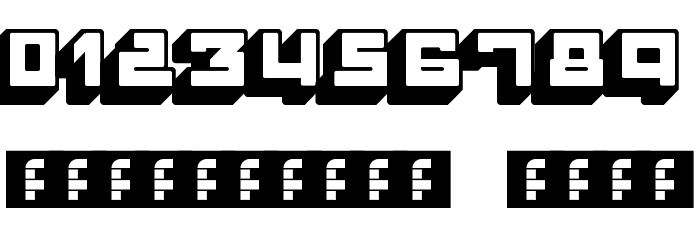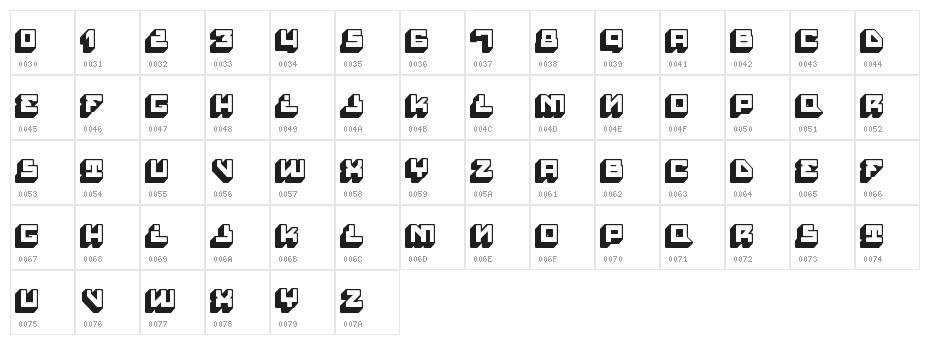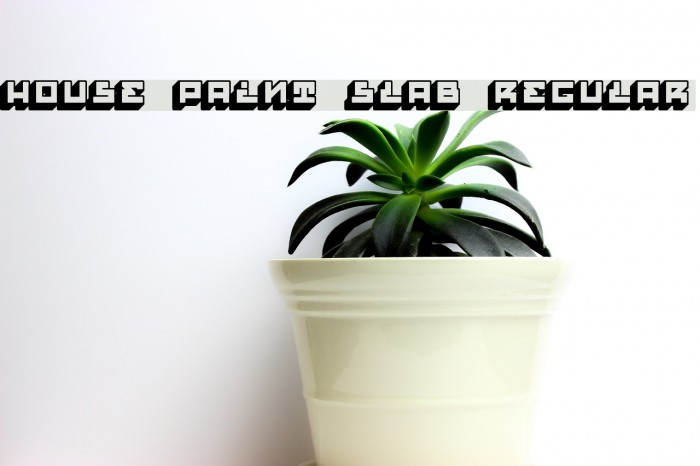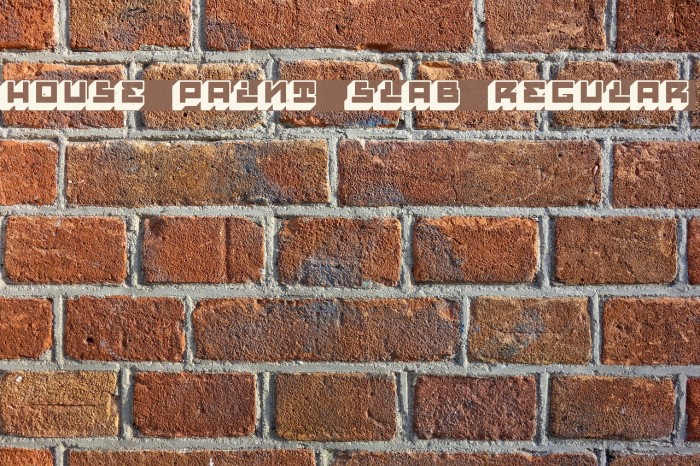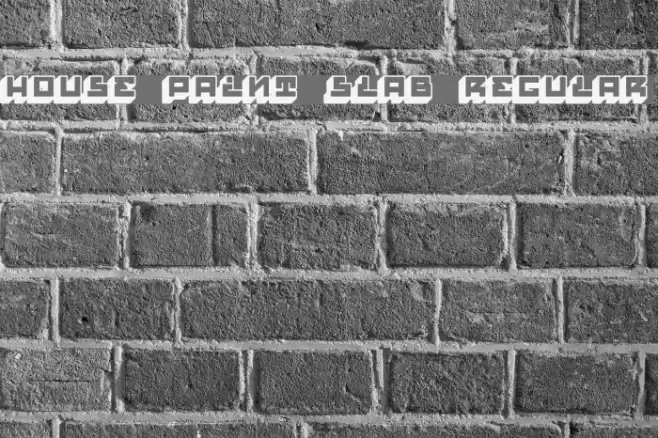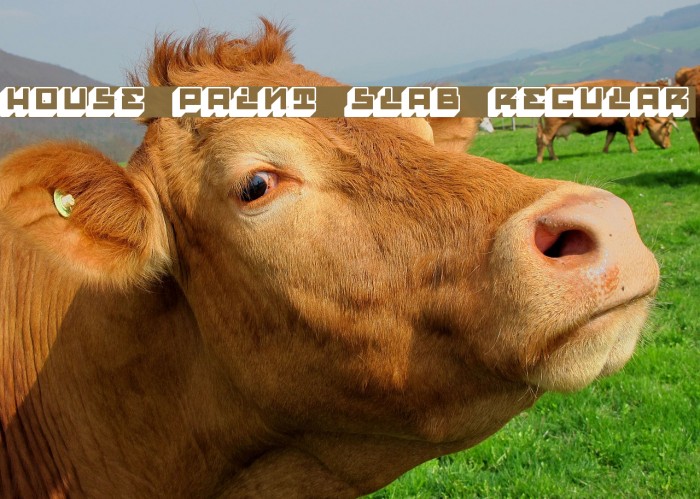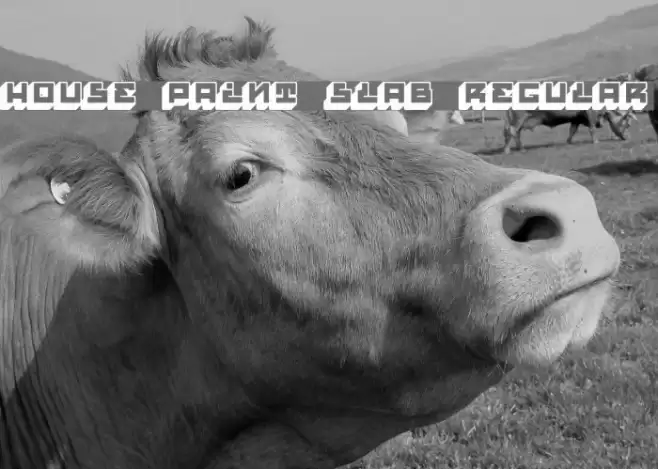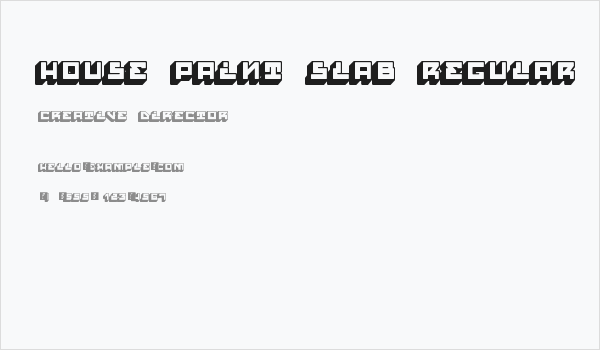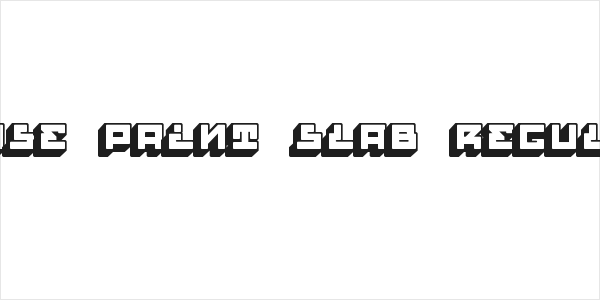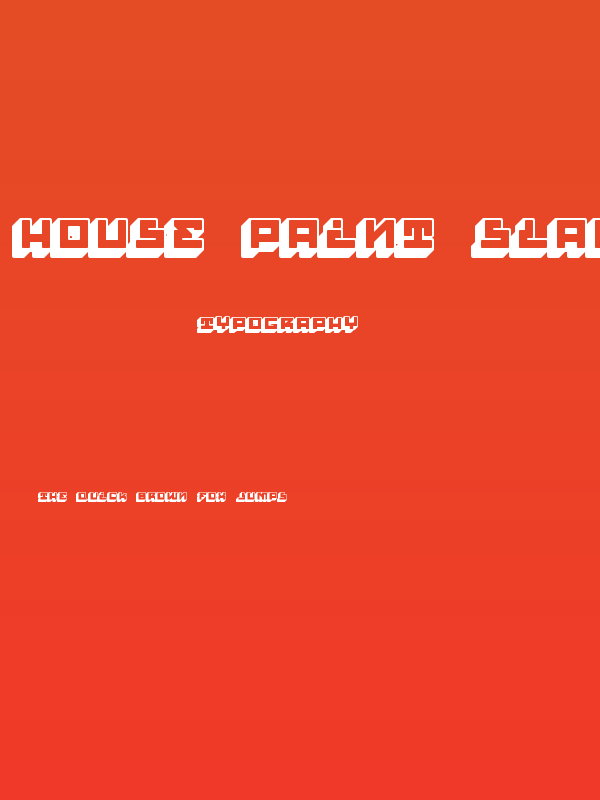
House Paint Slab Regular Font
House Paint Slab Regular Description
This font features a bold, three-dimensional slab serif style with a distinct shadow effect that gives it a striking, impactful appearance. The characters are blocky and geometric, with sharp angles and a consistent thickness throughout. The shadow adds depth, making it ideal for eye-catching designs. The uppercase and lowercase letters maintain a uniform style, while the numbers and special characters complement the overall aesthetic. This font is perfect for projects that require a strong, attention-grabbing typeface.
| Proposed Projects | Suitable for posters, headlines, logos, and any design needing a bold statement. |